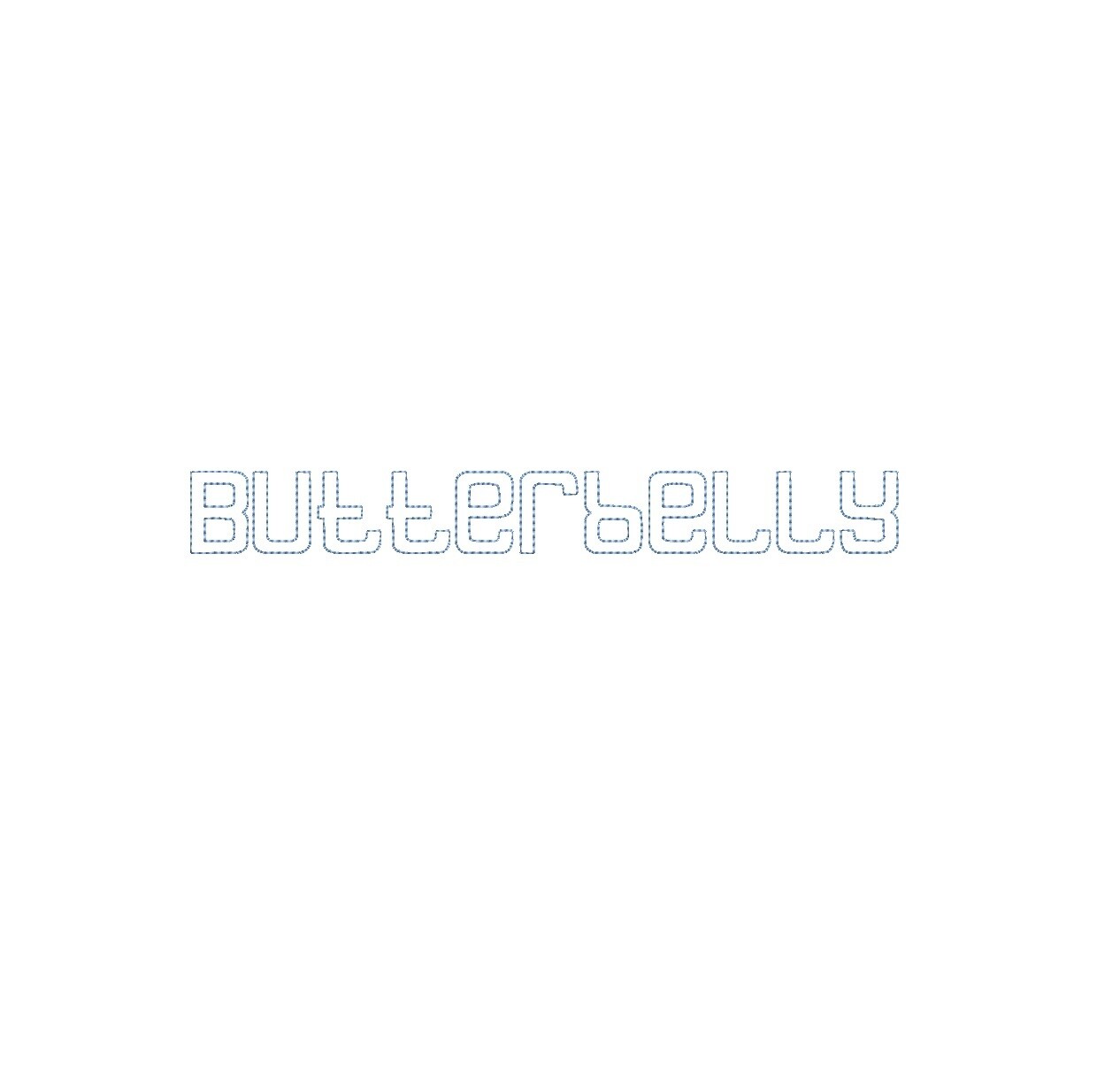
Elevate your embroidery with the charming Butterbelly Bean Stitch Outline ESA font. Crafted for compatibility with Wilcom Studio e4.5.6 and Hatch 3 versions and up, this font guarantees seamless integration. The intricate bean outline adds depth and character to your designs, while the ESA format ensures precise digitization. Transform your creations into captivating works of art using the Butterbelly Bean Stitch Outline ESA font. Elevate your embroidery endeavors and bring a touch of uniqueness to every project with this exquisite font.